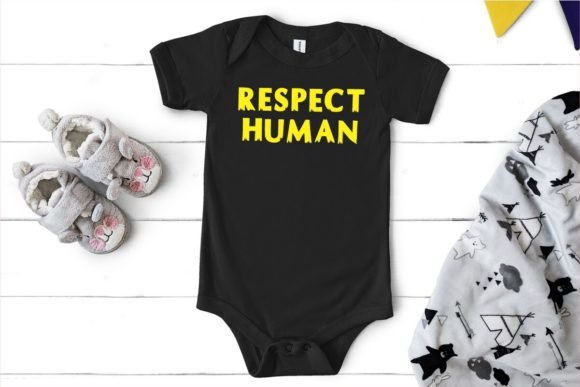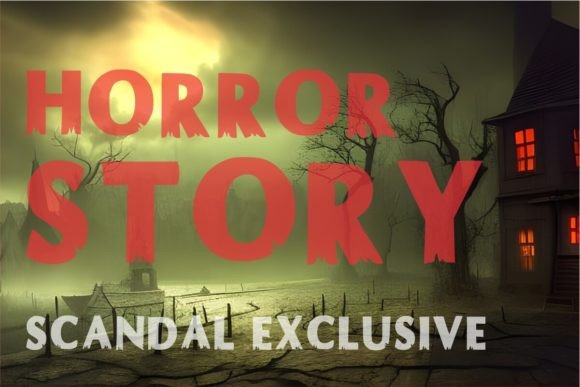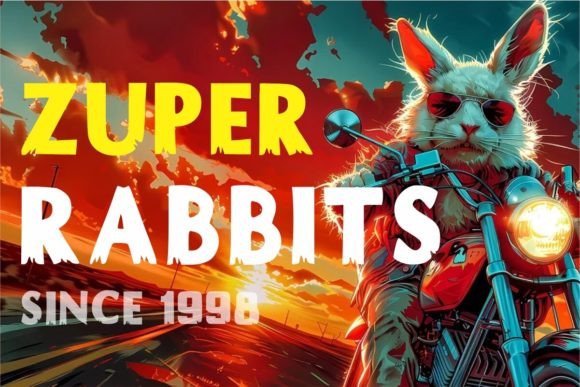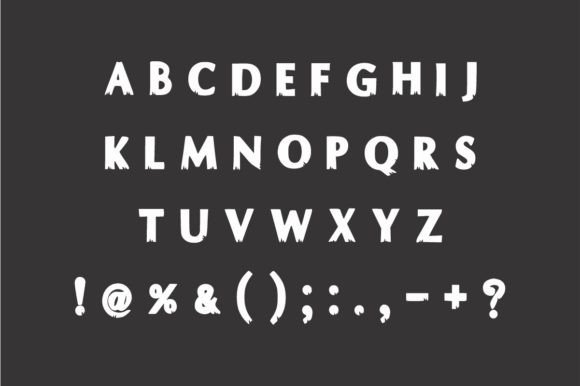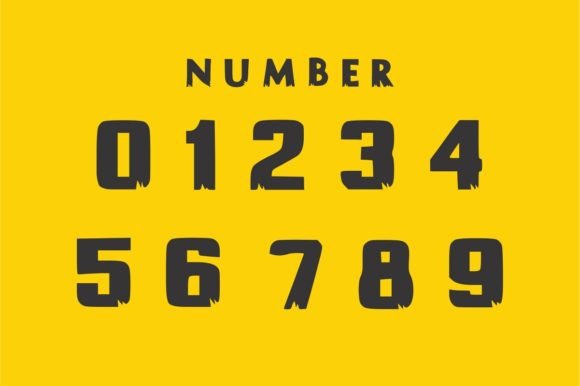
Unleash the Spook: Discover the Ghost Hunter Font
Are you a designer or crafter looking for a font that adds a touch of eerie elegance to your creations? Look no further than the Ghost Hunter Font. This aesthetic and cool display font is perfect for those who want to add a dash of informal and casual style to their visual designs. In this article, we’ll dive into the world of Ghost Hunter Font and explore its features, uses, and benefits.
What is Ghost Hunter Font?
Ghost Hunter Font is a unique and captivating display font that is sure to make your designs stand out. Its informal and casual style makes it a top choice for any creation, from product packaging to T-shirts, labels, and posters. The font’s aesthetic appeal lies in its ability to evoke a sense of mystery and intrigue, making it perfect for designers and crafters who want to add a touch of the unknown to their work.
Key Features of Ghost Hunter Font
- Aesthetic and Cool Design: Ghost Hunter Font boasts a sleek and modern design that is sure to turn heads. Its unique lettering style is both captivating and eerie, making it perfect for designs that require a touch of mystery.
- Informal and Casual Style: The font’s informal and casual style makes it perfect for designs that require a laid-back and relaxed vibe. Whether you’re designing for a brand or a personal project, Ghost Hunter Font is sure to deliver.
- Versatile: Ghost Hunter Font is a versatile font that can be used across a range of designs, from product packaging to T-shirts, labels, and posters.
Uses of Ghost Hunter Font
Ghost Hunter Font is a versatile font that can be used in a variety of designs, including:
- Product Packaging: Add a touch of mystery to your product packaging with Ghost Hunter Font. Perfect for brands that want to stand out on store shelves.
- T-Shirts and Apparel: Create eye-catching T-shirts and apparel with Ghost Hunter Font. Its casual and informal style makes it perfect for streetwear and fashion designs.
- Labels and Stickers: Use Ghost Hunter Font to create labels and stickers that are both functional and visually appealing.
- Posters and Flyers: Create striking posters and flyers with Ghost Hunter Font. Its bold and captivating design makes it perfect for advertising and promotional materials.
Benefits of Using Ghost Hunter Font
So why choose Ghost Hunter Font for your designs? Here are just a few benefits:
- Unique and Captivating Design: Ghost Hunter Font boasts a unique and captivating design that is sure to turn heads.
- Easy to Read: Despite its bold and eye-catching design, Ghost Hunter Font is easy to read, making it perfect for designs that require a clear and concise message.
- Customizable: Ghost Hunter Font is customizable, allowing you to adjust the font to fit your design needs.
Tips for Using Ghost Hunter Font
Here are a few tips for using Ghost Hunter Font in your designs:
- Use it Sparingly: Ghost Hunter Font is a bold and eye-catching font, so use it sparingly to avoid overwhelming your design.
- Pair it with Other Fonts: Ghost Hunter Font pairs well with other fonts, so experiment with different combinations to find the perfect look for your design.
- Experiment with Colors: Ghost Hunter Font looks great in a range of colors, so experiment with different hues to find the perfect look for your design.
In conclusion, Ghost Hunter Font is a unique and captivating display font that is perfect for designers and crafters who want to add a touch of mystery and intrigue to their creations. Its aesthetic and cool design, informal and casual style, and versatility make it a top choice for a range of designs, from product packaging to T-shirts, labels, and posters. With its easy-to-read design, customizable features, and bold and eye-catching style, Ghost Hunter Font is sure to become a go-to font in your design arsenal.